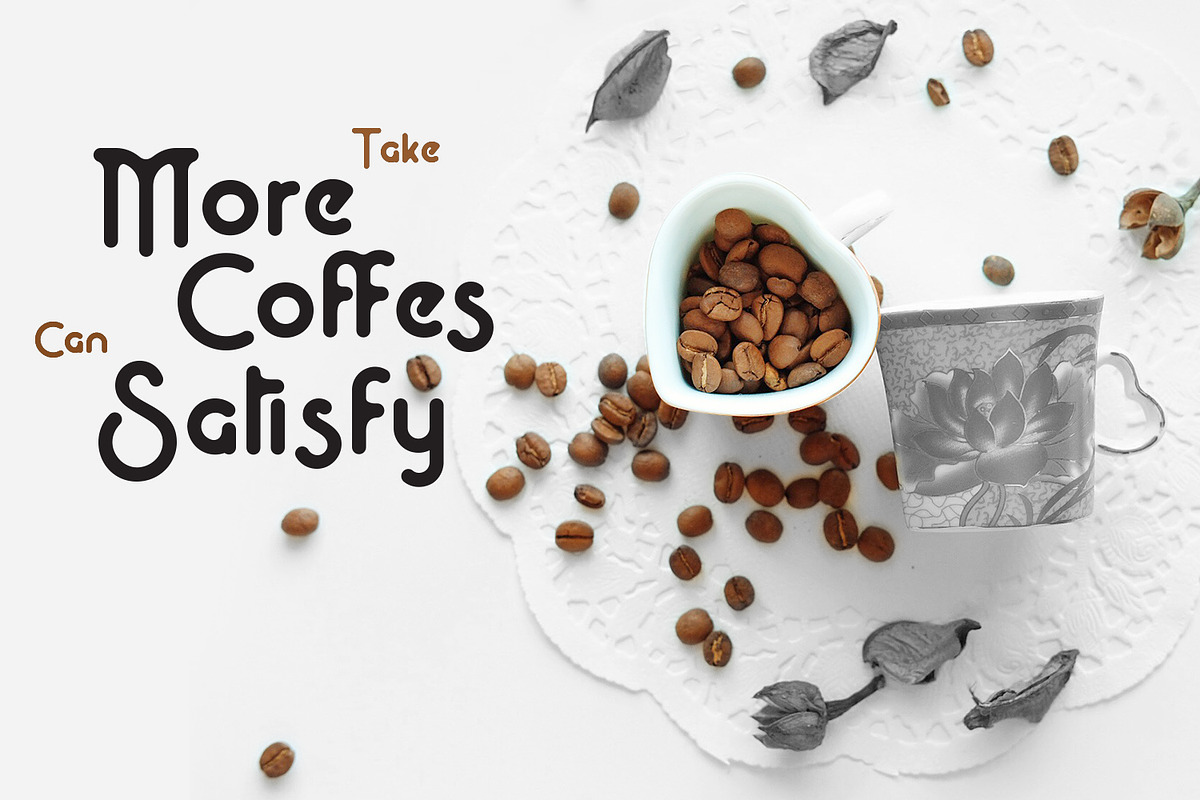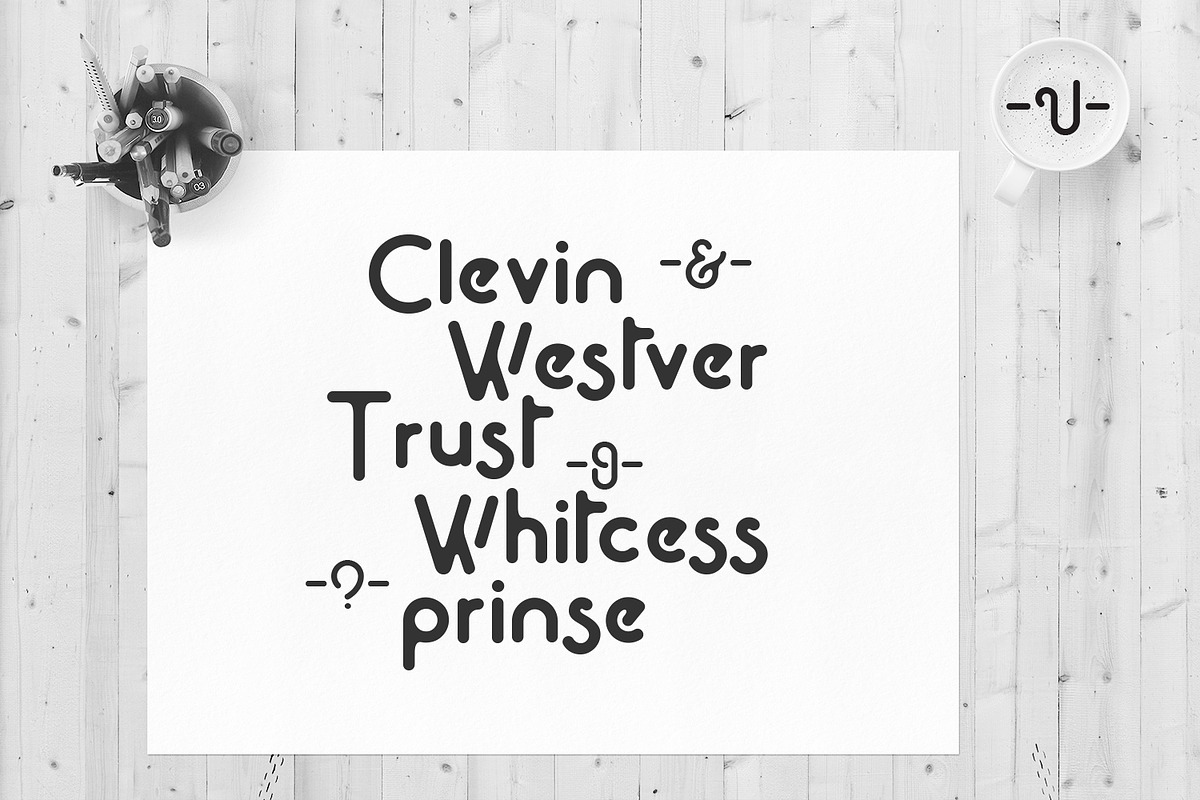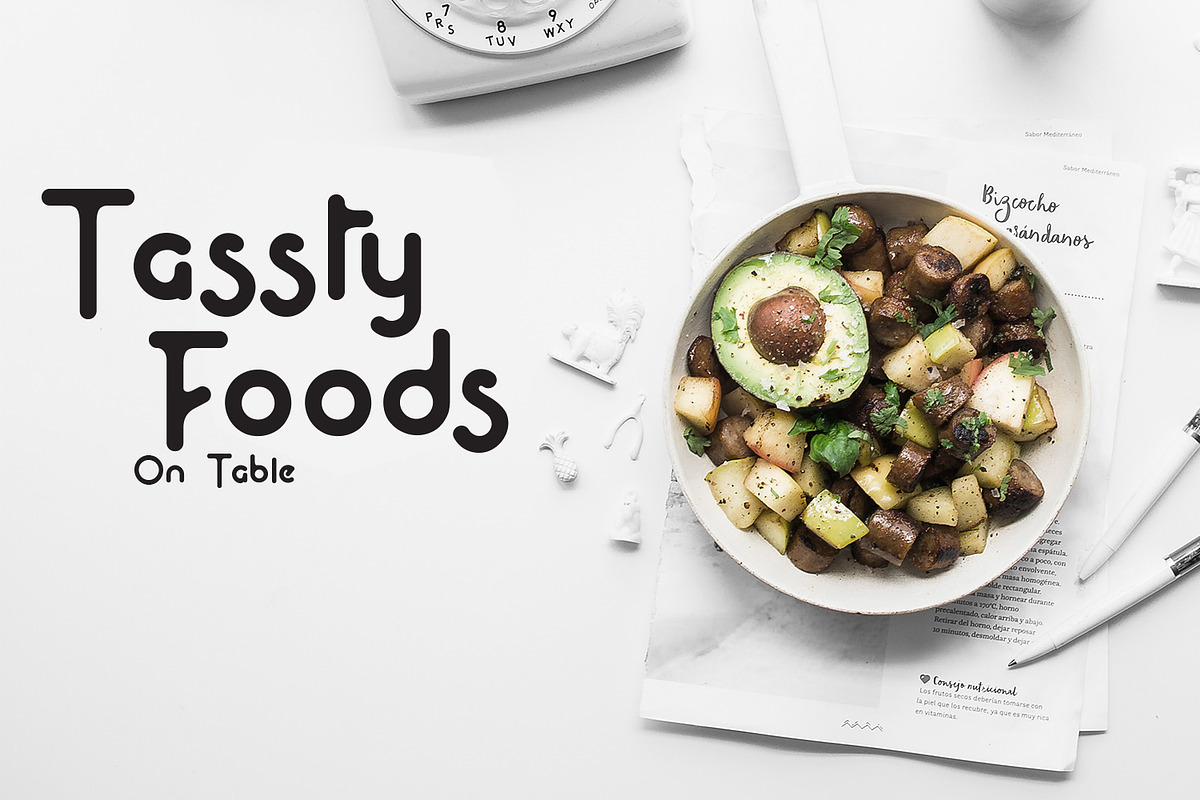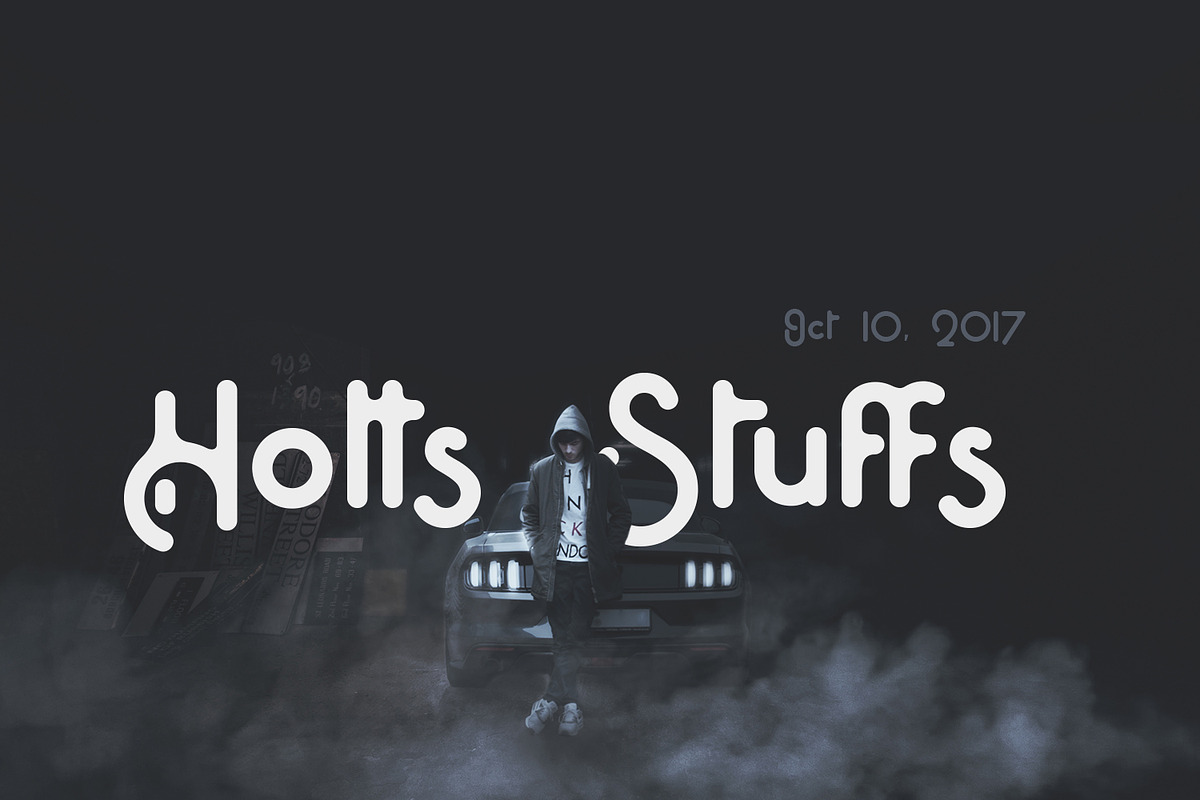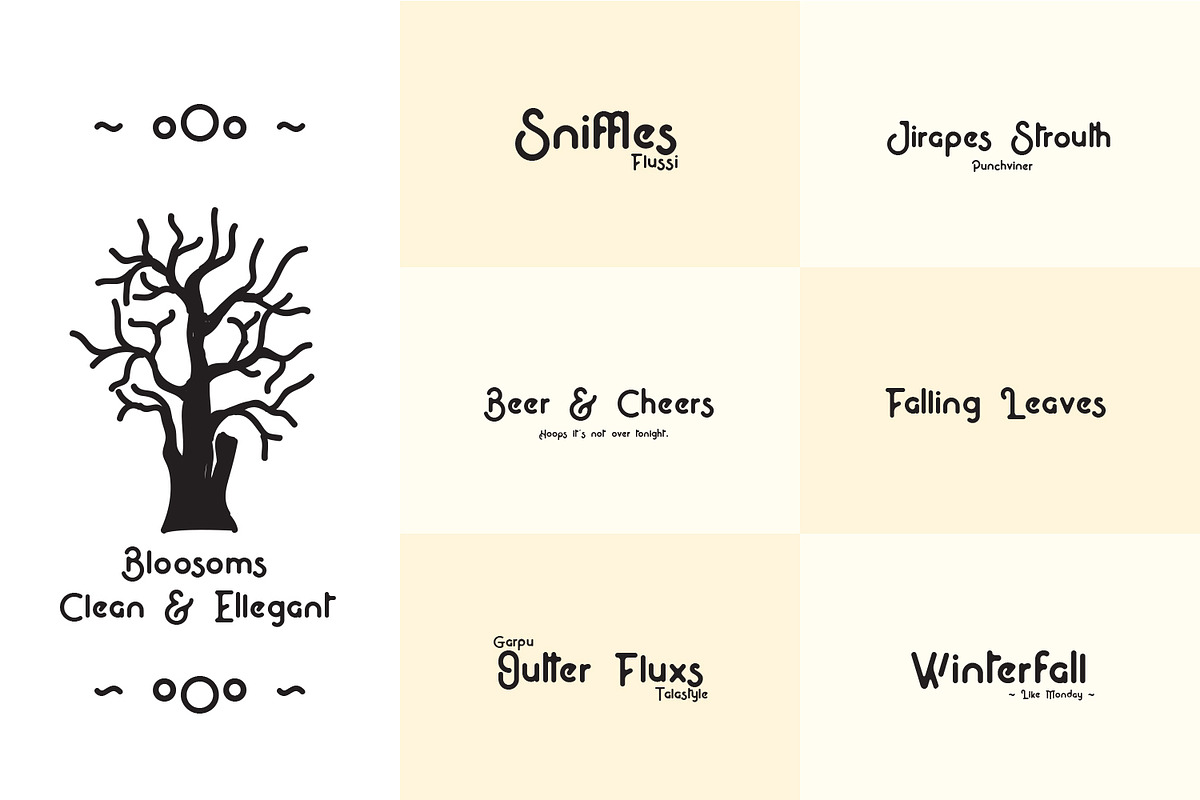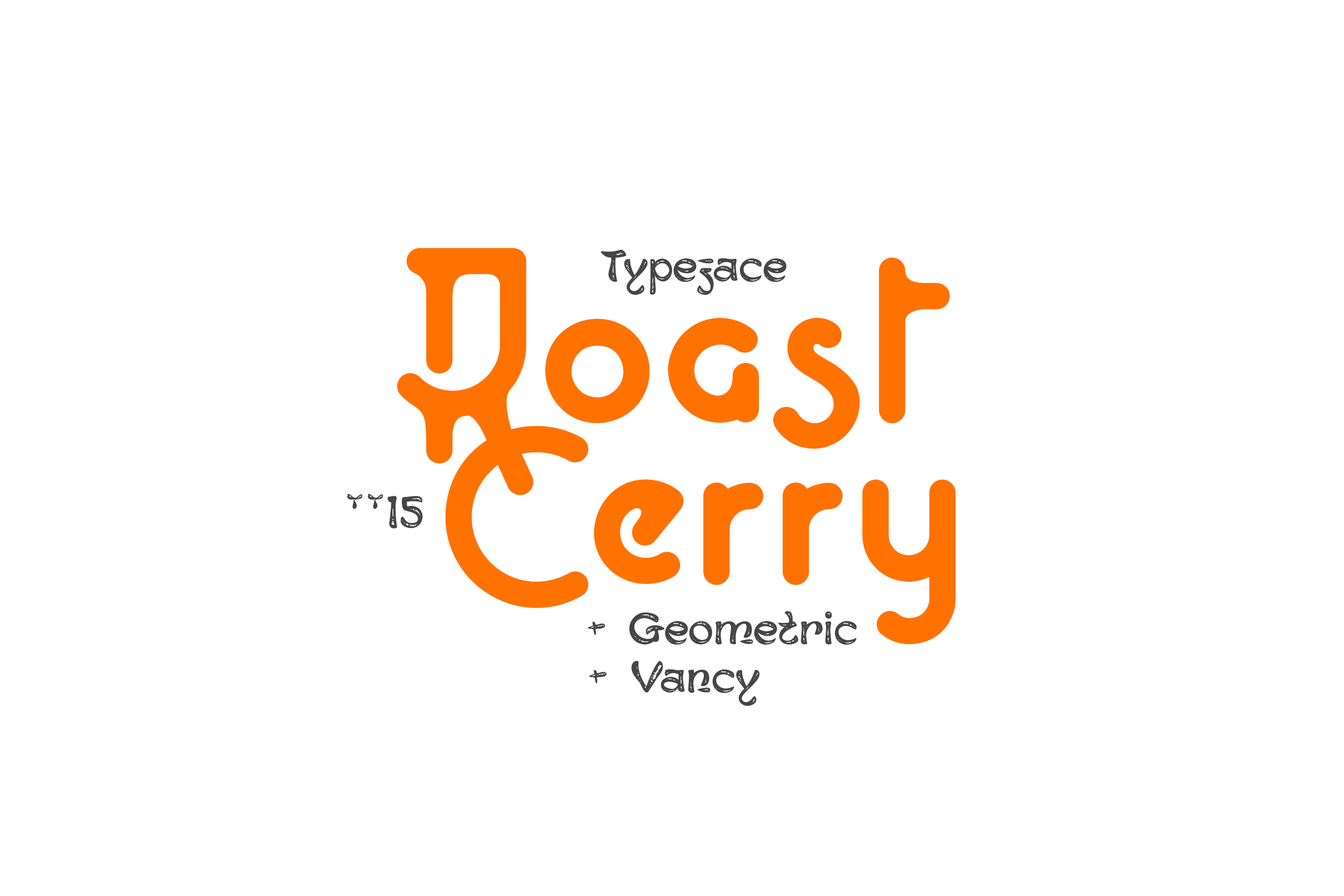
Bloosom Display Font
This is a clean and elegant font. Symmetric can also be seen there. This font belongs to the type of display font. this will be suitable to complete your work. Very Fancy font for your kind of design.